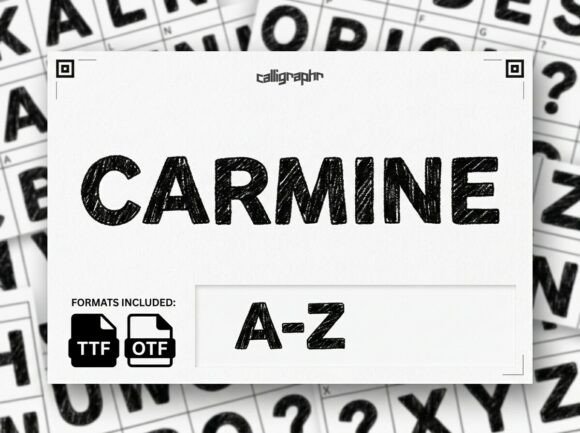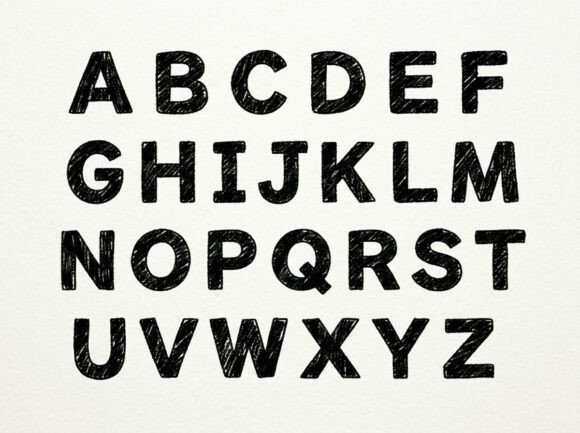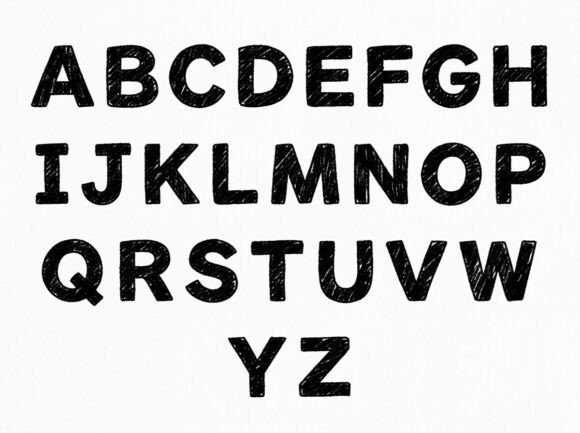
The Carmine Font: A Stunning Decorative Display Font for Creative Minds
Have you ever been in the middle of a design project, pouring your heart and soul into it, only to get stuck on one thing: finding the perfect font? I recall a particularly frustrating experience when a client asked for a bold, eye-catching headline that would make their brand stand out. After scouring the internet for hours, I stumbled upon the Carmine Font, and it was love at first sight! 💡
This decorative display font is designed to be the center of attention, and with its unique artistic elements and strong visual personality, it’s perfect for creators who want to break away from the ordinary. In this article, we’ll dive into the world of Carmine Font, exploring its features, uses, and some clever tips and tricks for getting the most out of it.
- ✨ Unique and artistic elements that make it perfect for bold headlines, artistic logos, and creative packaging
- ✅ Professional and polished finish, making it suitable for a wide range of design projects
⚠️ One thing to note is that the Carmine Font is an ALL-CAPS (Uppercase Only) display typeface, which means it doesn’t include lowercase letters. This might be a limitation for some designers, but it’s actually a deliberate design choice to focus on high-impact headlines, logos, and decorative initials where every letter is a work of art.
The Carmine Font was designed with the intention of creating a bold and eye-catching display font that would make a statement. Inspired by the artistic and creative world, the designer aimed to craft a font that would be perfect for designers, crafters, and creative hobbyists who want to add a touch of personality to their projects.
Q: Is the Carmine Font suitable for body text?
A: No, the Carmine Font is designed specifically for high-impact headlines, logos, and decorative initials. It’s not recommended for body text due to its ALL-CAPS design and artistic elements.